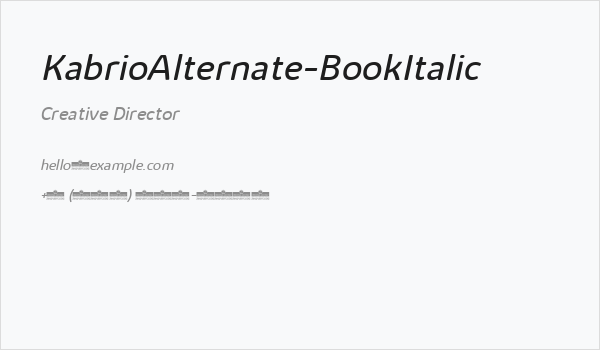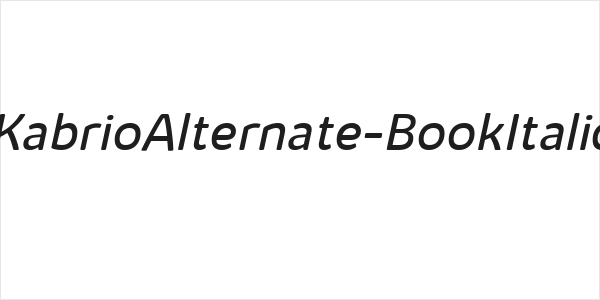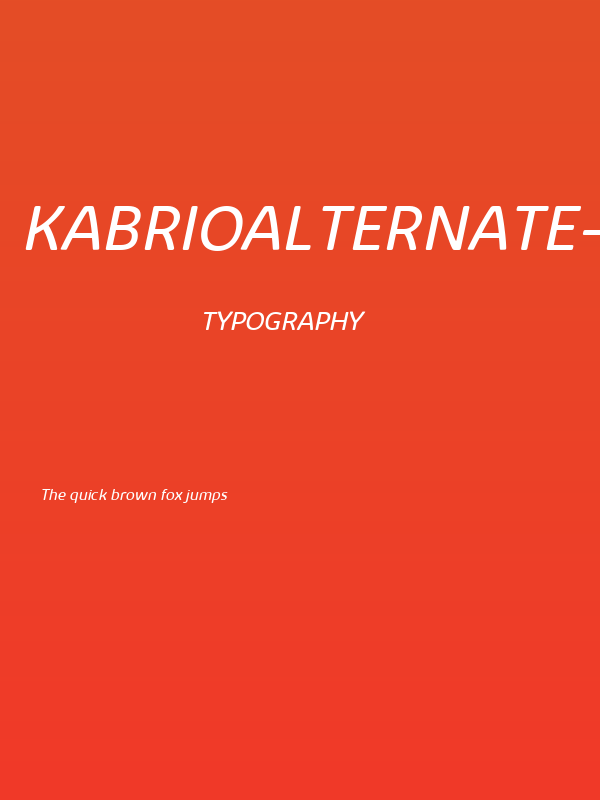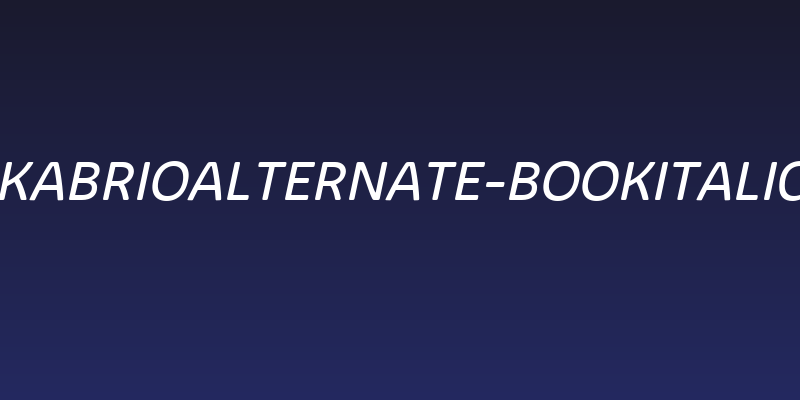
KabrioAlternate-BookItalic Font
KabrioAlternate-BookItalic Description
This font features a sleek and modern design with a subtle italic slant, offering a dynamic and fluid appearance. The characters are well-balanced with a consistent stroke width, providing a clean and professional look. The uppercase letters are bold and commanding, while the lowercase letters maintain a friendly and approachable style. The numerals are clear and easy to read, making them suitable for various applications. Special characters are included, enhancing the font's versatility. Overall, this font is ideal for projects that require a contemporary and stylish touch.
| Proposed Projects | Ideal for branding, advertising, digital media, and editorial design. |